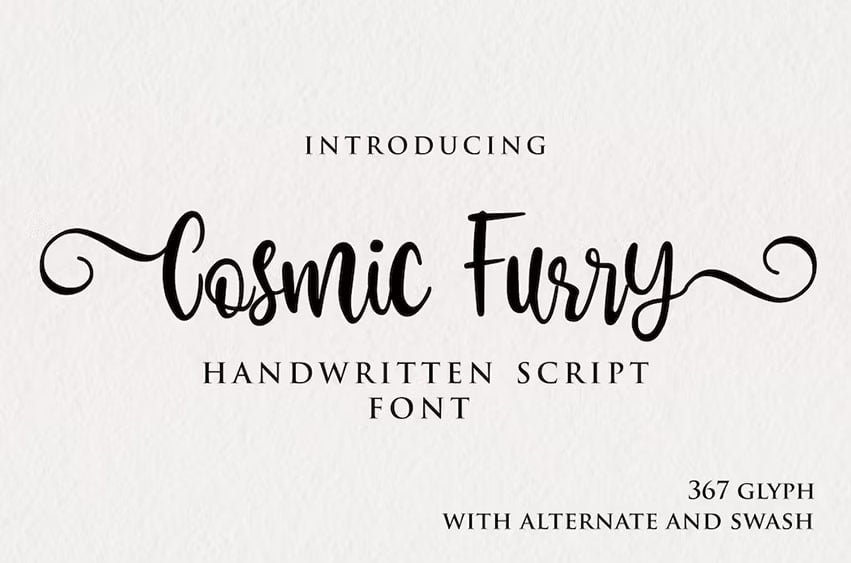
Cosmic Furry Font
Cosmic Furry Font is a simple handwritten script suitable for branding, wedding invitations, quotes, vloggers and other feminine projects.
• uppercase
• lowercase
• start and end of swash
• the beginning and the end of the swash flower
• alternative letter in the middle
• ligature
• swash